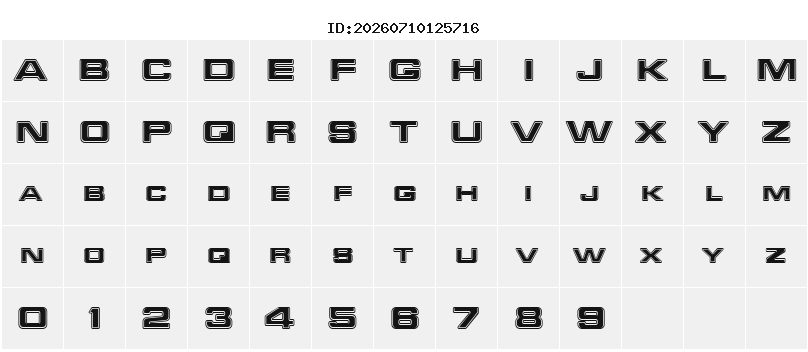
FederationStarfleet Preview
• Font Name: FederationStarfleet
• Full Font Name: FederationStarfleet
About FederationStarfleet.ttf
FederationStarfleet.ttf is a modern, elegant sans-serif font designed for ultimate readability and visual harmony. Perfect for branding, headlines, web design, and print materials.